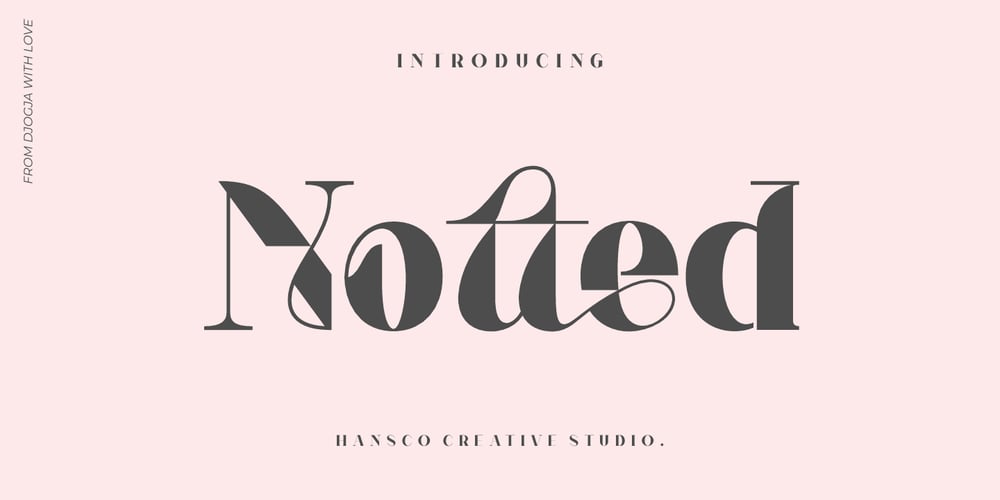
Notted Font Family was designed by Burhan Afif and published by HansCo. Notted contains 1 styles and family package options. Notted is a beautiful and elegant display font. It is fresh, clean, and elegant. This font will look amazing in a great amount of projects, both formal and informal. Notted is the perfect font for making many original project and outstanding designs. Its casual charm makes it appear wonderfully down-to-earth, readable and, ultimately, incredibly versatile. Comes with a full uppercase, lowercase, numbers and punctuation + standard multilingual support. It’s great for branding, logo designs, lettering, logotype, craft, posters, packaging and much more. We recommend using Adobe Illustrator or Photoshop.